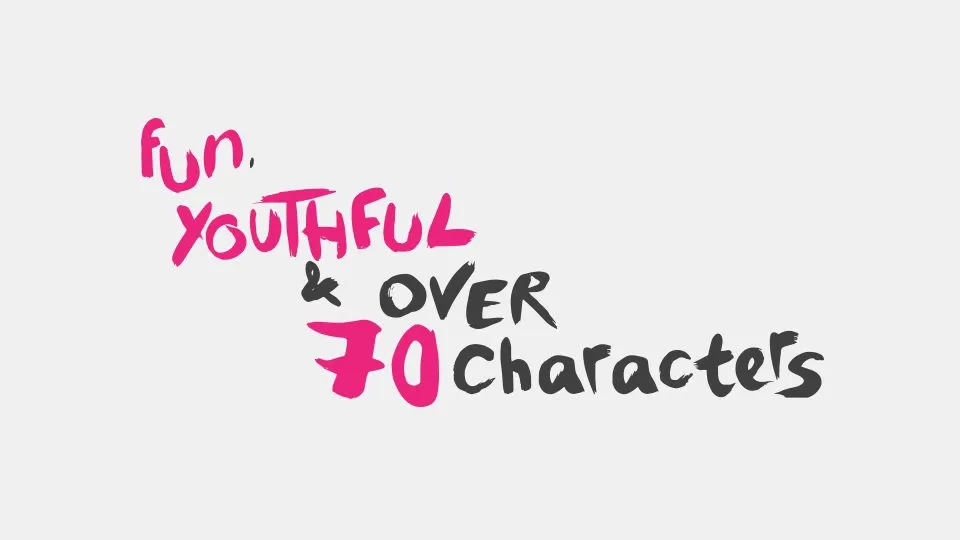
The Cat has a Hat Font
The Cat Has a Hat Font is a vibrant and creative brush font inspired by the imaginative world of Dr. Seuss. Designed to capture the whimsical essence of his beloved stories, this font features playful curves and a charming handwritten style. It is perfect for projects that require a touch of whimsy and sophistication, making it ideal for children’s books, educational materials, and any design that needs a playful twist. With its unique and lively appearance, The Cat Has a Hat Font brings a sense of fun and creativity to any text, evoking the magic of Dr. Seuss’s timeless tales.